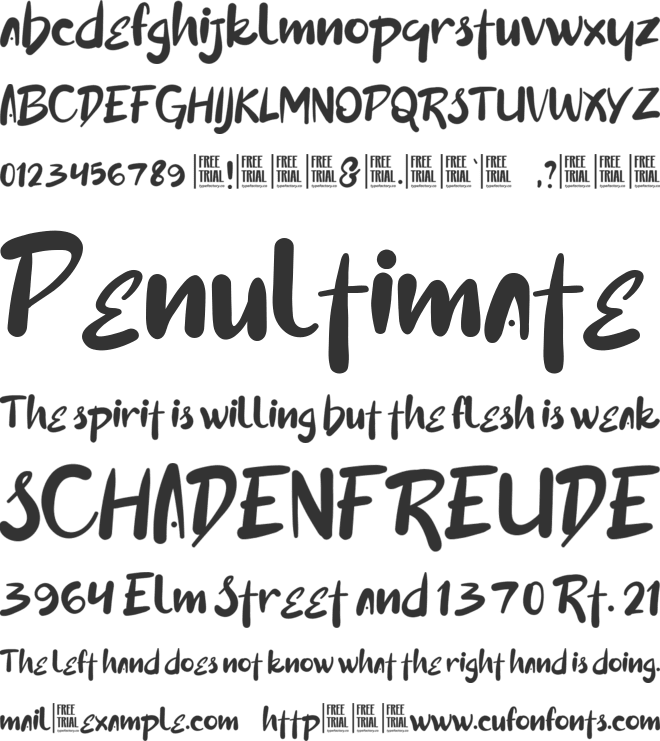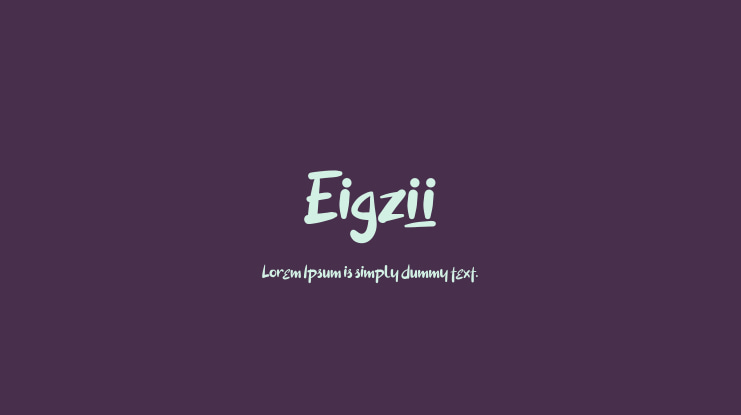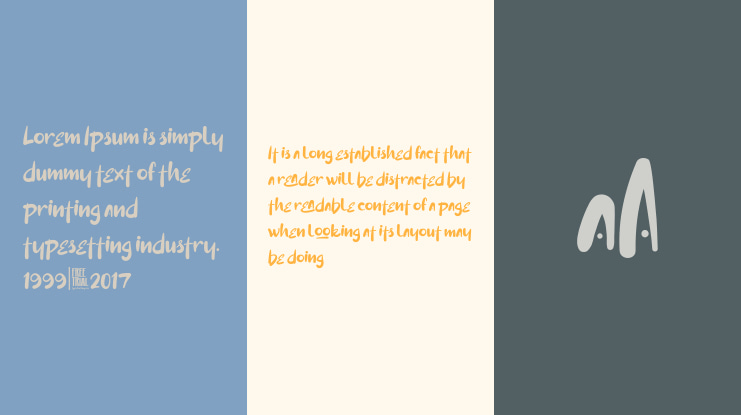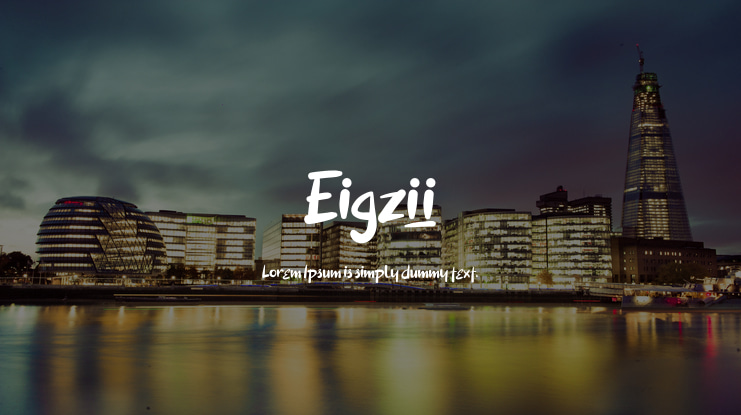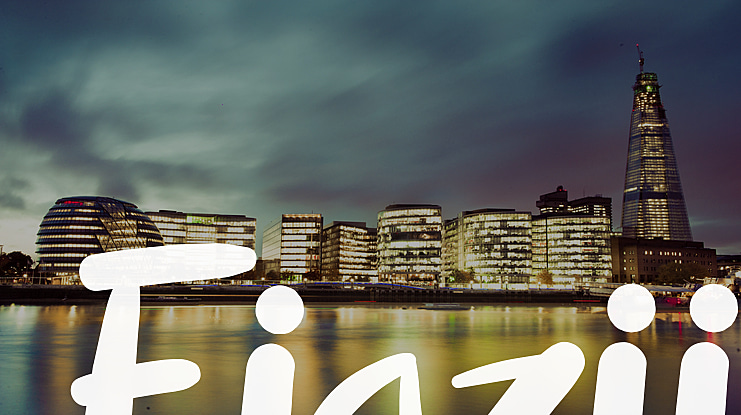
Eigzii Font
Eigzii is a fancy hand-drawn font, carefully handcrafted to become a true favorite.
This font will look outstanding in any context, whether it’s being used on busy backgrounds or as a standalone headline!